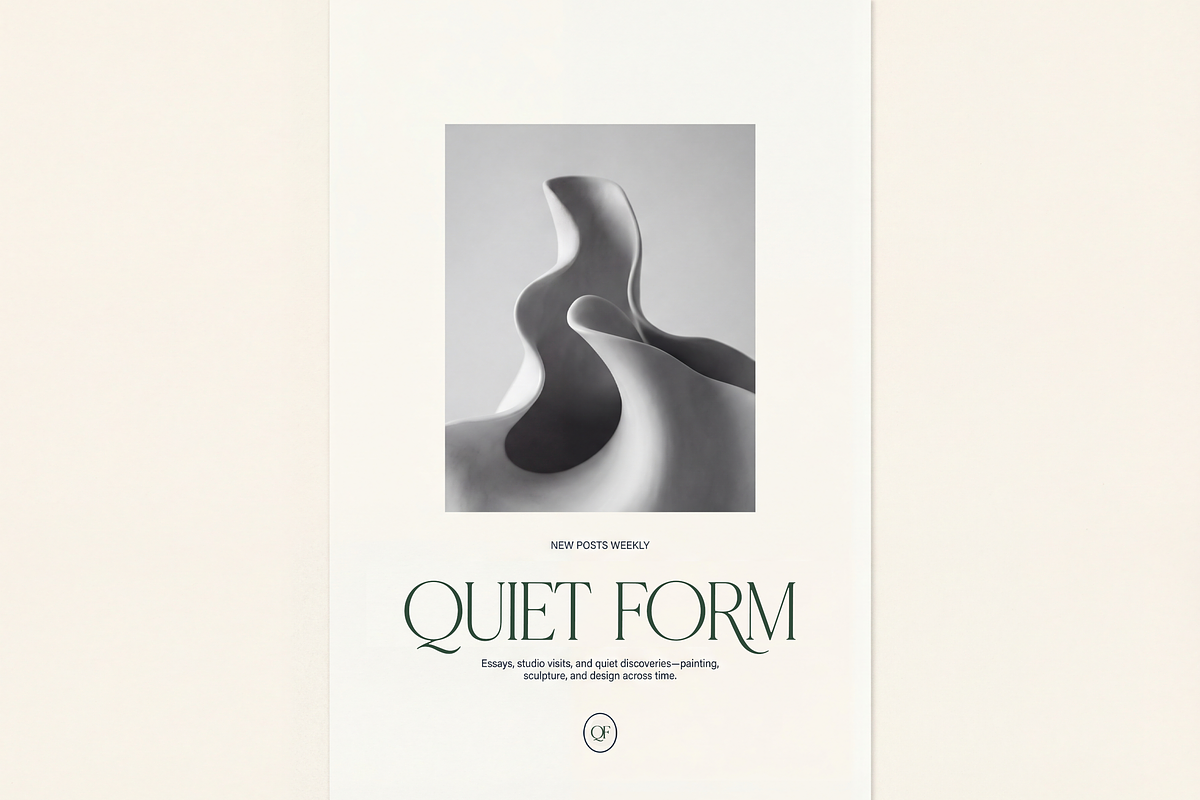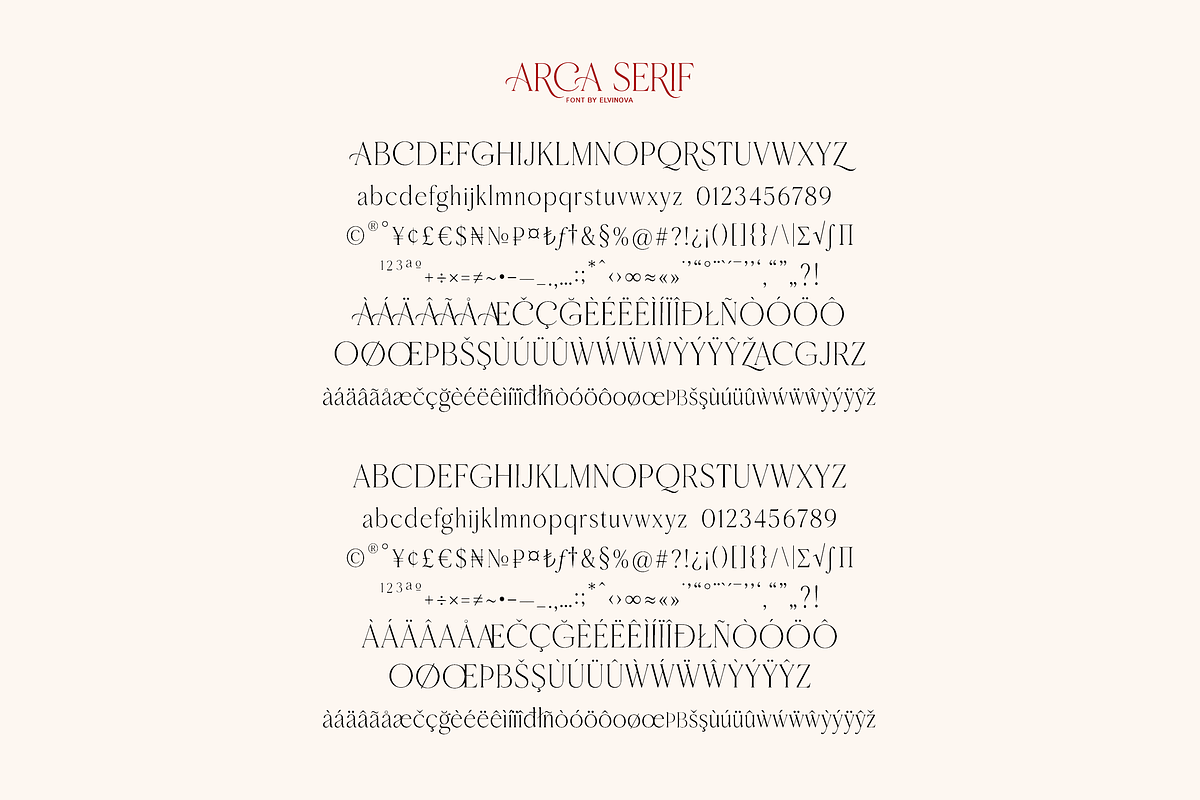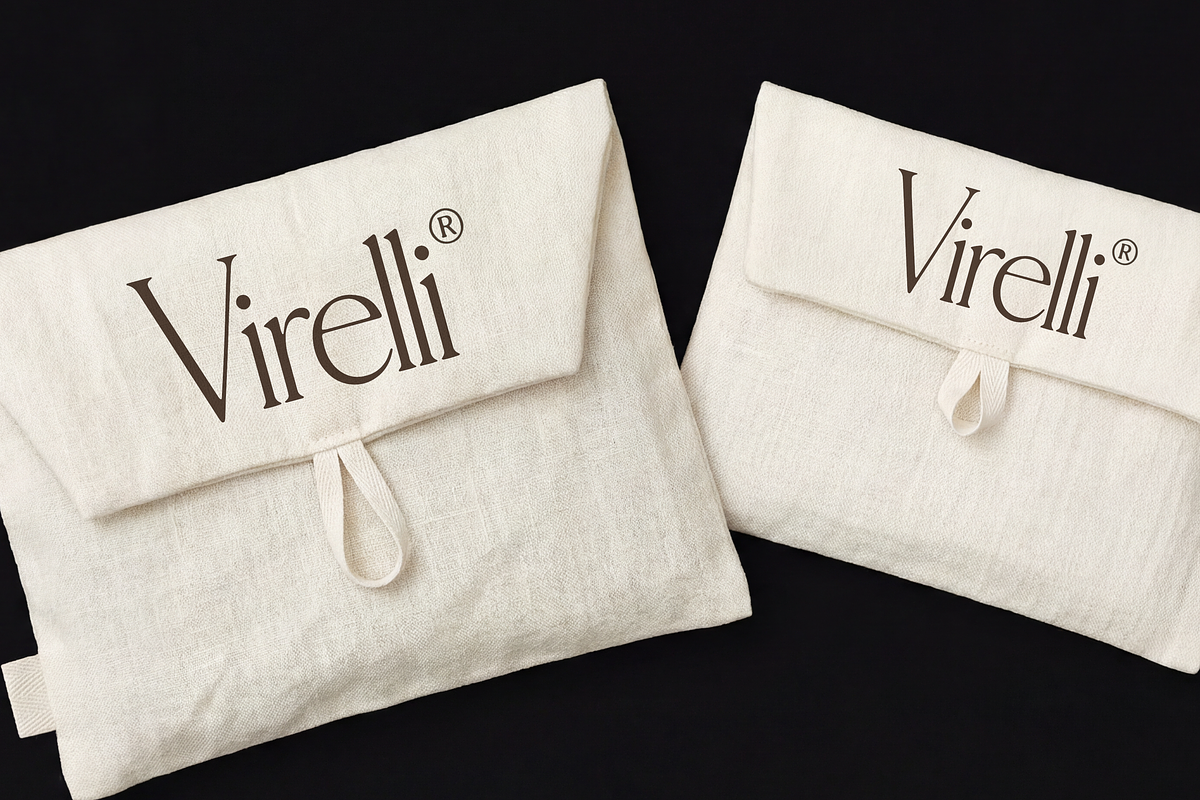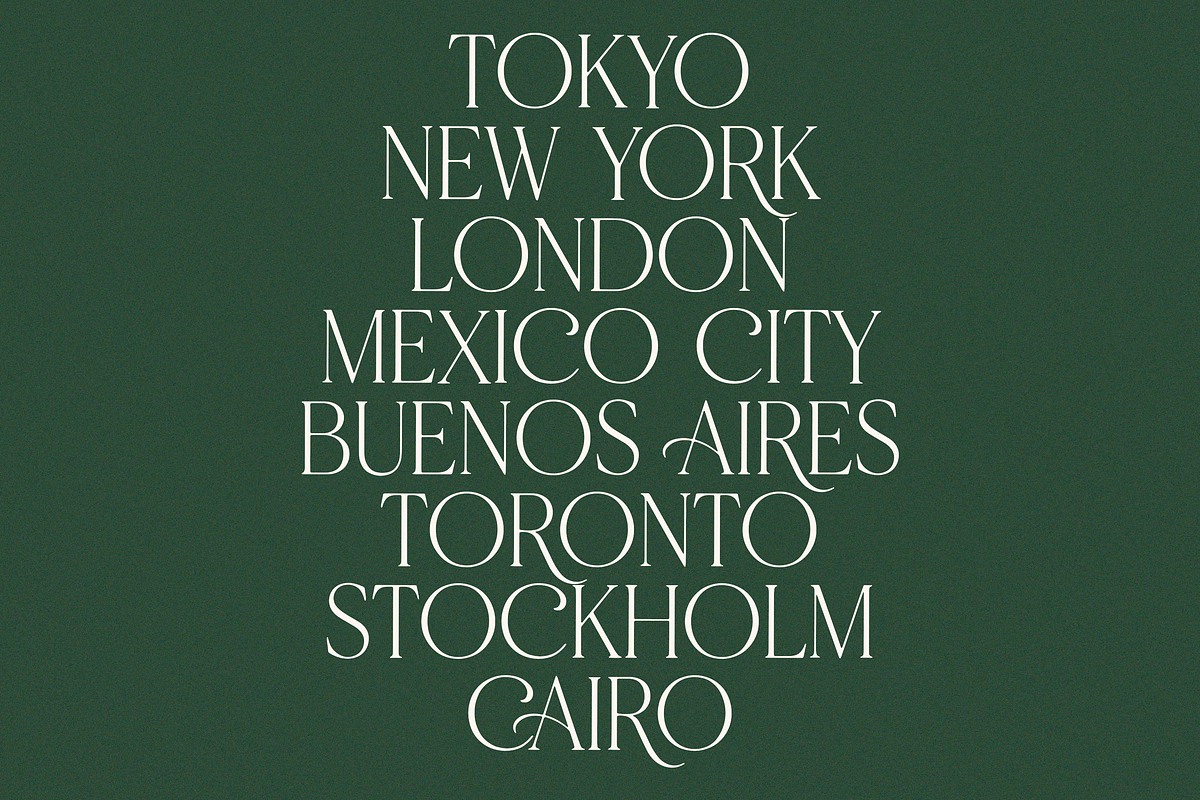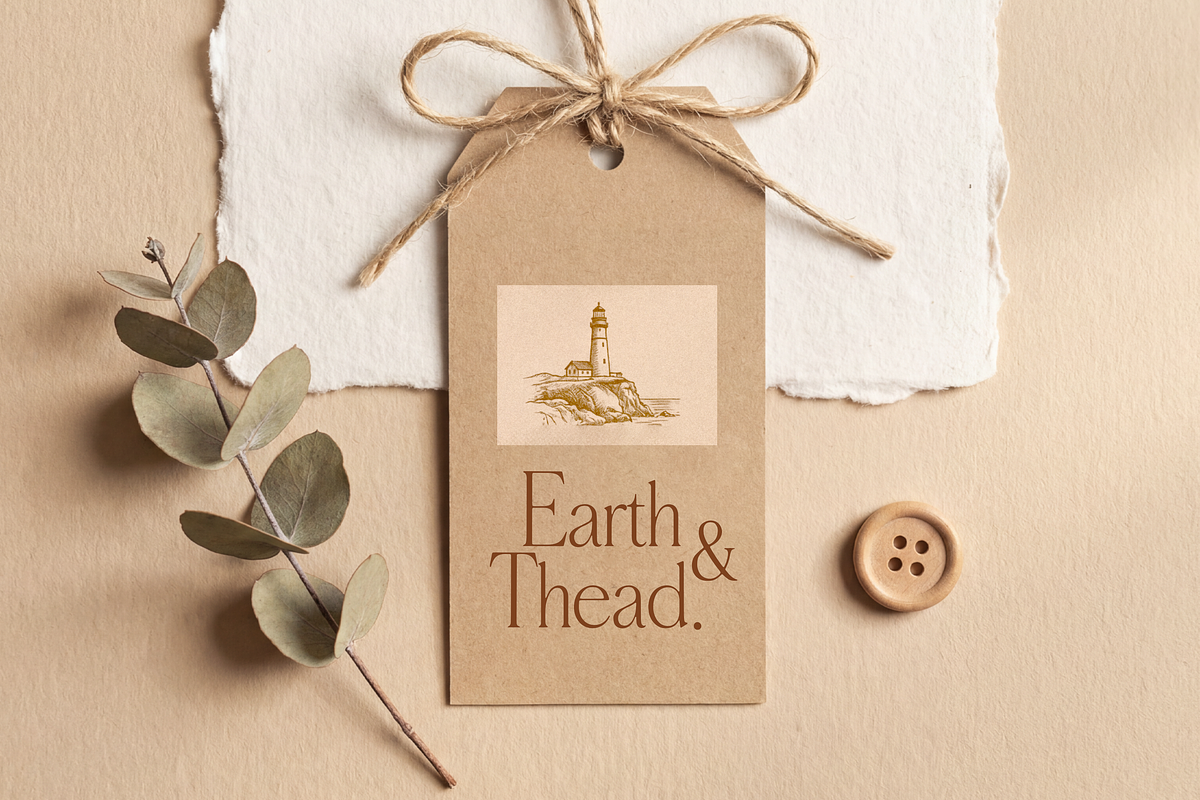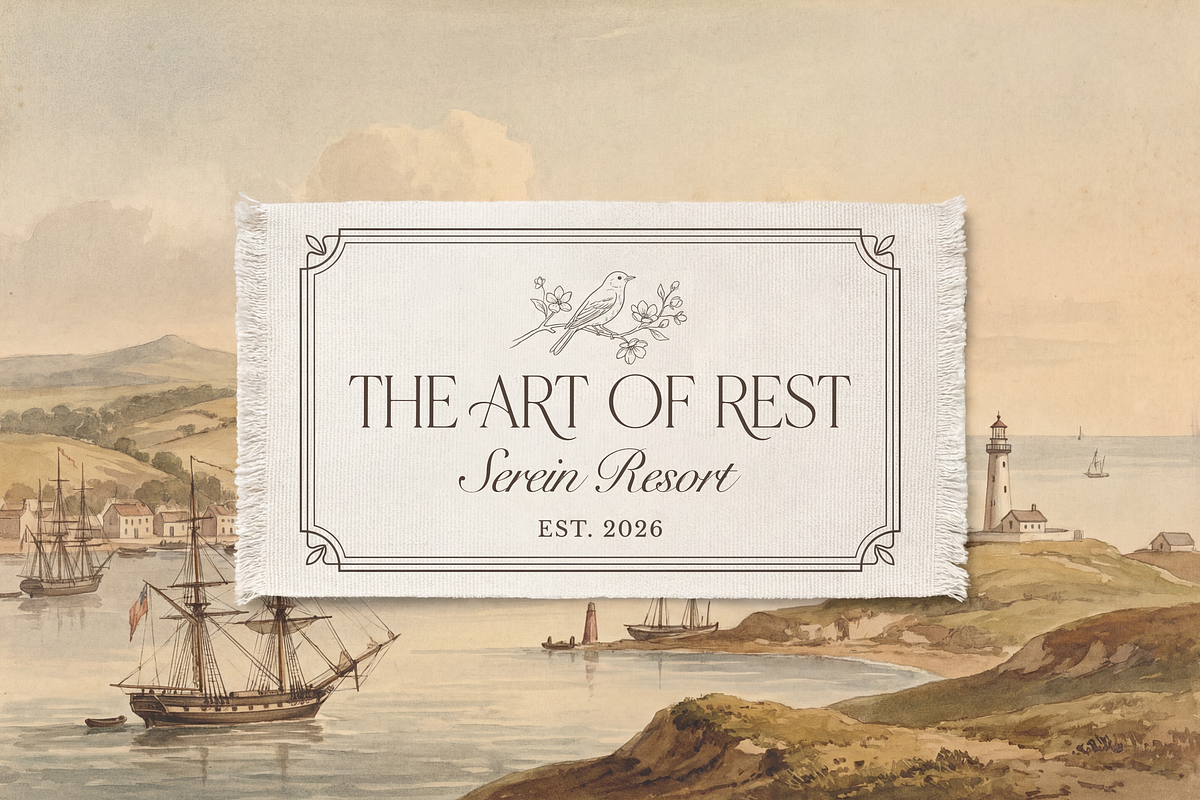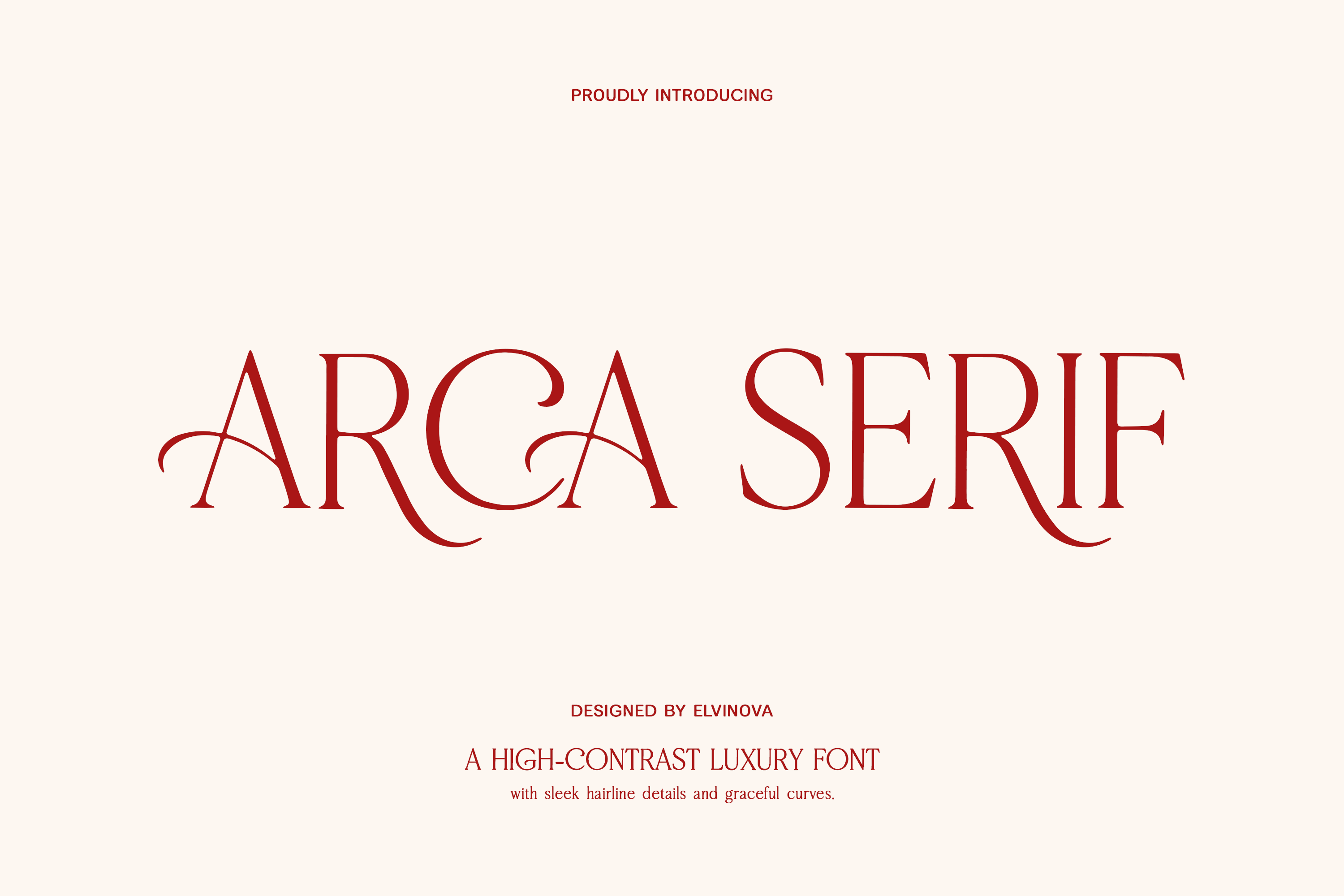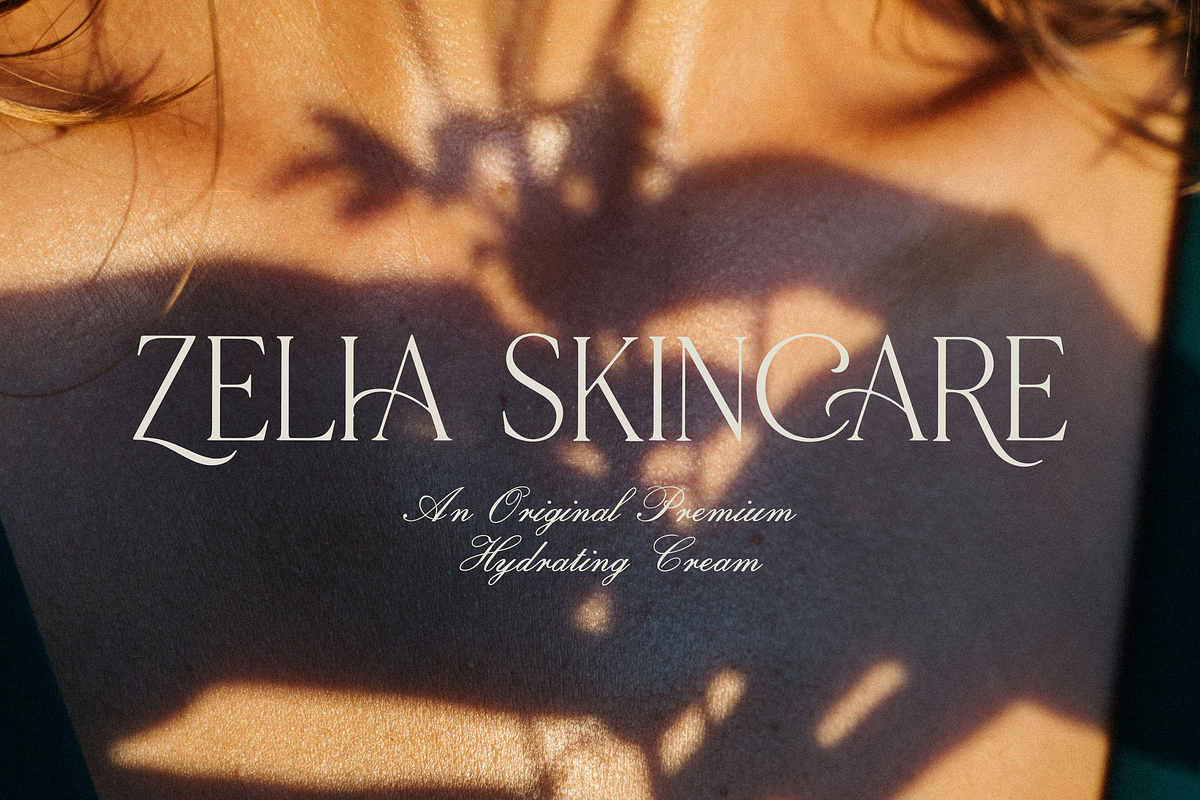
Arca Serif Modern Font
ARCA SERIF is a high-contrast luxury serif - where sleek hairline details meet graceful, sculpted curves. It’s made for brands that want to feel editorial, refined, and unforgettable.
Arca Serif has two moods to match your design intent:
- Expressive swash-style capitals for standout logos and headline moments
- A clean classic cut for elegant, readable compositions
Perfect for
Fashion & beauty branding, editorial layouts, logos, packaging, invitations, wedding suites, quotes, social media graphics, premium product labels, website headers, posters.
- Upper/lowercase, numbers, punctuations;
Language support: English, German, French, Spanish, Italian, Danish, Finnish, Portuguese, Swedish, Norwegian, Dutch, Indonesian, Luxembourgish, Icelandic, Cornish, Hungarian, Filipino, Romansh, Slovenian, Estonian, Polish, Turkish.